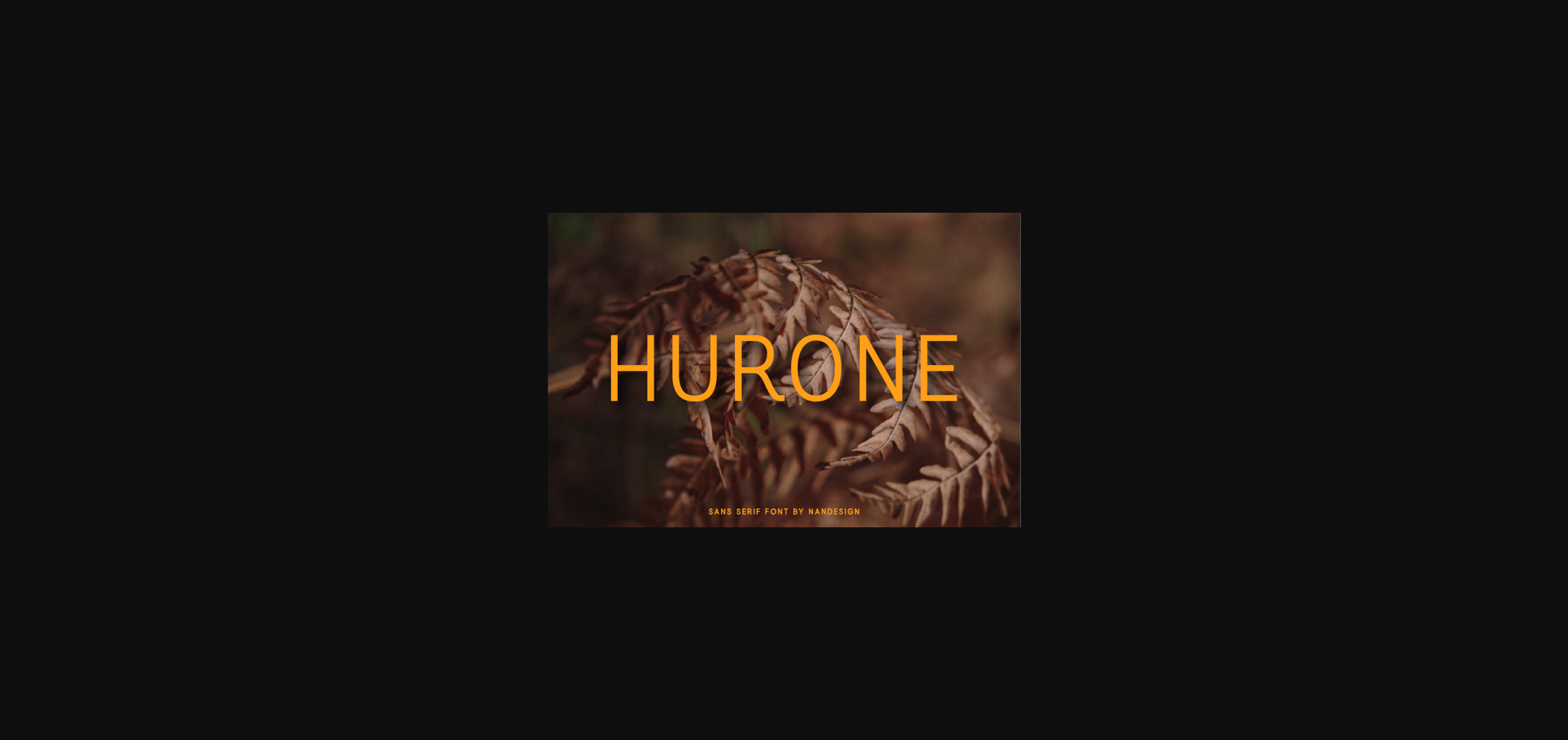
HomeSans Serif FontsHurone Font Sans Serif Fonts Hurone Font FacebookXPinterestWhatsApp 1 of 4 ... Hurone Font Poster 2... Hurone Font Poster 3... Hurone Font Poster 4... About Hurone Font Hurone is a fancy sans serif font. In addition to its well-balanced weight distribution, it has a modern feel which is further emphasized by the carefully adjusted alternates and ligatures! DOWNLOAD NOW People also explored Forge Pro Lemonylac Laughtrack Queental Font Simple Market Font Letter Font Grooce Font Enofive Font Best Jolly Font 359 0 TagsHuroneHurone Font Previous articleDeckero FontNext articleDowellu Font LEAVE A REPLY Cancel reply Comment: Please enter your comment! Name:* Please enter your name here Email:* You have entered an incorrect email address! Please enter your email address here Website: Save my name, email, and website in this browser for the next time I comment. Personal Use Free Calega Personal Use Free Read more about this font Advantage Personal Use Free Read more about this font Open Store Personal Use Free Read more about this font Konexio Personal Use Free Read more about this font BLOG Using Fonts in Digital Marketing: Tips to Strengthen Your Brand Identity In the realm of digital marketing, every visual element plays a crucial role in shaping a brand's identity, and fonts are no exception. The... Exploring Font Trends 5 Fonts That Will Dominate Design Trends in 2026 Where to Buy American Fonts Online in 2024